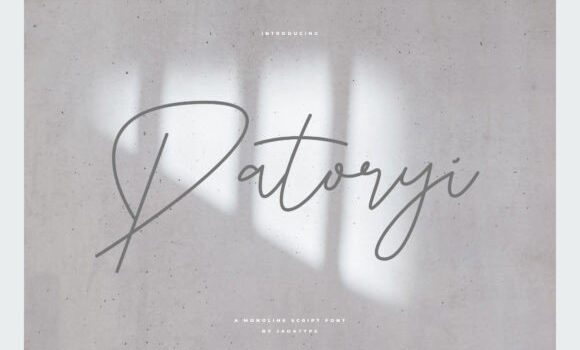
patoryi
Patoryi Font – Free Download Introduction to Patoryi Font Patoryi is a delicate and elegant handwritten font. 📸 Preview Gallery 5 images 📌 Product Name Patoryi Font 👤 Author jadatype 📂 Category Explore ⬇️ Download Patoryi Font FREE Free Download